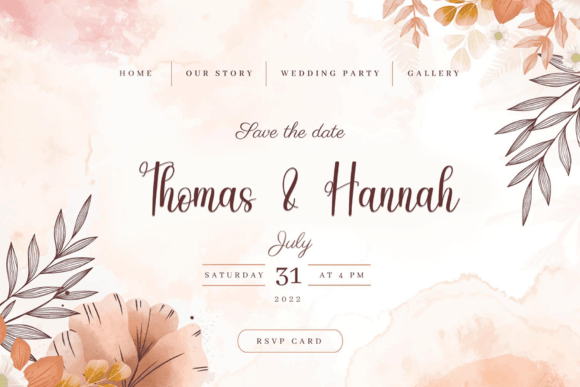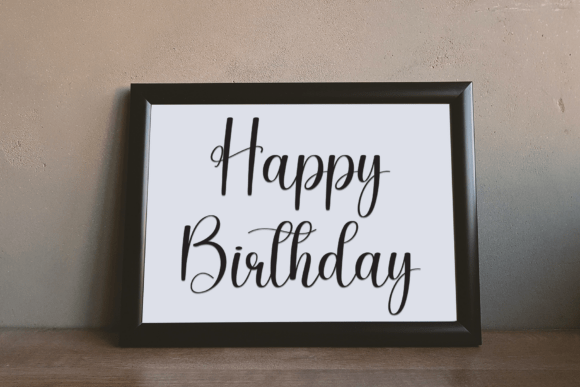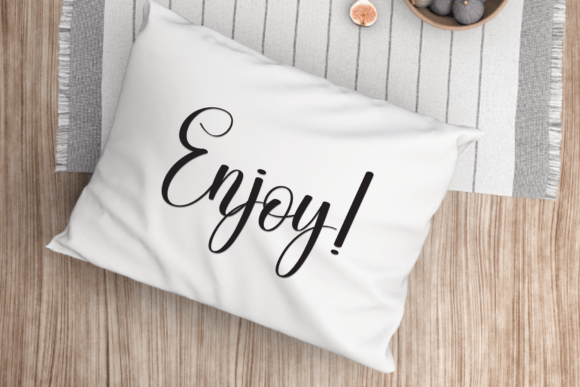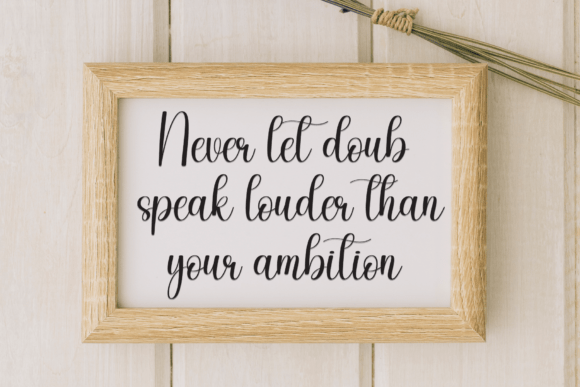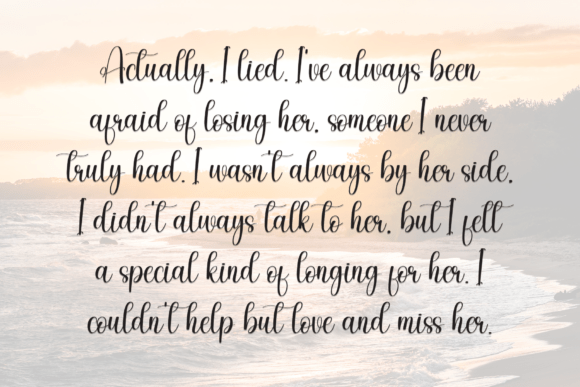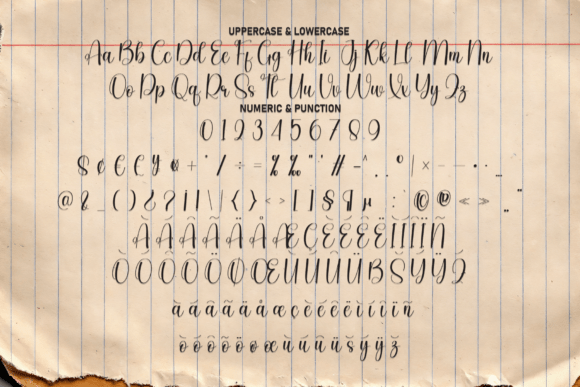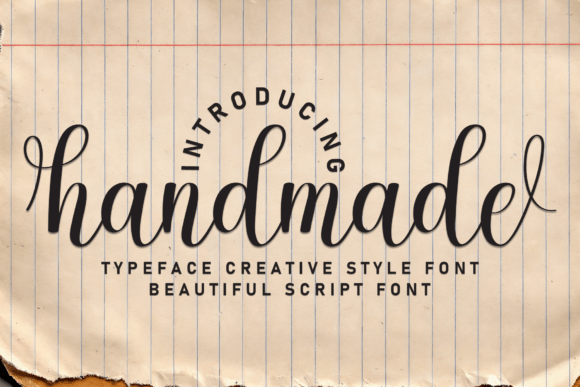
Introducing the Handmade Font: A Tidal Surge of Artistic Prowess
Immerse yourself in a tidal surge of artistic prowess with the irresistibly delightful handmade font. Engaging and dynamic in nature, this captivating font is the ideal addition to heartwarming wedding invites, sincere greeting cards, or any design longing for that extra sprinkle of magic.
The Charm of Handwritten Typography
In a world dominated by digital communication, handwritten typography has become a breath of fresh air. The handmade font is a warm and inviting script that radiates a charismatic, jubilant glow, perfectly equipped to infuse joy and wonder into your beloved designs. Its unique, handcrafted essence adds a touch of personality and whimsy, setting it apart from more traditional fonts.
A Creative Canvas for Designers and Crafters
This entrancing typographic masterpiece transcends beyond simple lettering—it’s a creative canvas that ignites the imagination, leaving a trail of joyful admiration in its wake. The handmade font offers endless possibilities for designers and crafters, allowing them to experiment with various styles, textures, and colors to create something truly one-of-a-kind.
Perfect for Heartwarming Occasions
The handmade font is particularly well-suited for heartwarming occasions such as weddings, anniversaries, and birthdays. Its elegant, cursive strokes and playful flair make it an excellent choice for wedding invitations, save-the-date cards, and other romantic correspondence. The font’s warm and inviting nature also makes it perfect for greeting cards, allowing you to express your sentiments in a thoughtful and personalized way.
Bringing Joy and Wonder to Your Designs
With the handmade font, you can add a touch of magic to your designs, making them more engaging and memorable. Its dynamic and captivating nature makes it perfect for a wide range of applications, from branding and advertising to packaging and editorial design. Whether you’re a seasoned designer or a crafty DIY enthusiast, this font is sure to inspire your creativity and take your designs to the next level.
Key Features of the Handmade Font
• Unique, handcrafted essence: Adds a touch of personality and whimsy to your designs
• Warm and inviting script: Radiates a charismatic, jubilant glow
• Elegant, cursive strokes: Perfect for heartwarming occasions and romantic correspondence
• Playful flair: Adds a touch of magic to your designs
• Endless creative possibilities: Allows for experimentation with various styles, textures, and colors
Tips for Using the Handmade Font
To get the most out of the handmade font, here are a few tips to keep in mind:
• Experiment with different sizes and styles: Find the perfect balance for your design
• Pair with complementary fonts: Create a unique and visually appealing combination
• Add textures and patterns: Give your design an extra layer of depth and interest
• Play with color: Find the perfect hue to match your brand or design aesthetic
The handmade font is a tidal surge of artistic prowess that is sure to captivate and inspire designers and crafters alike. Its unique, handcrafted essence, warm and inviting script, and endless creative possibilities make it the perfect addition to any design. Whether you’re looking to add a touch of magic to your wedding invitations, greeting cards, or other designs, this font is sure to deliver. So why wait? Immerse yourself in the creative possibilities of the handmade font and take your designs to new heights!